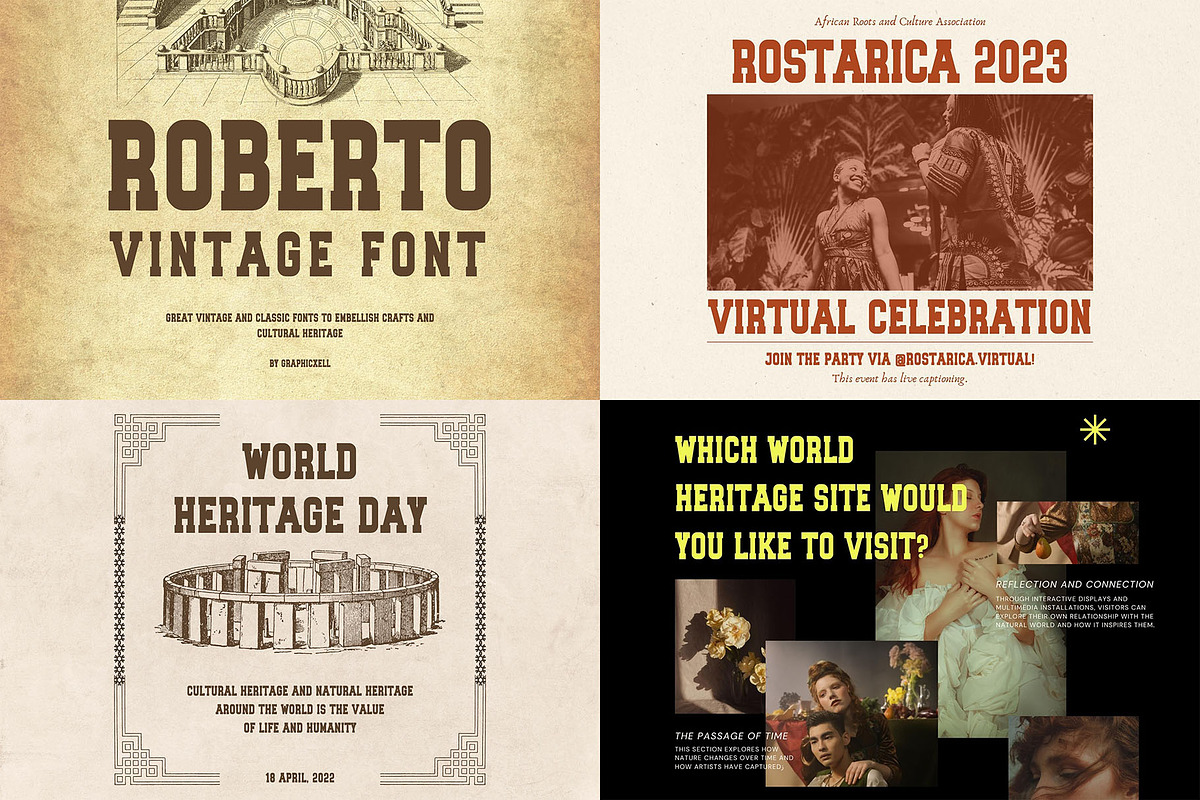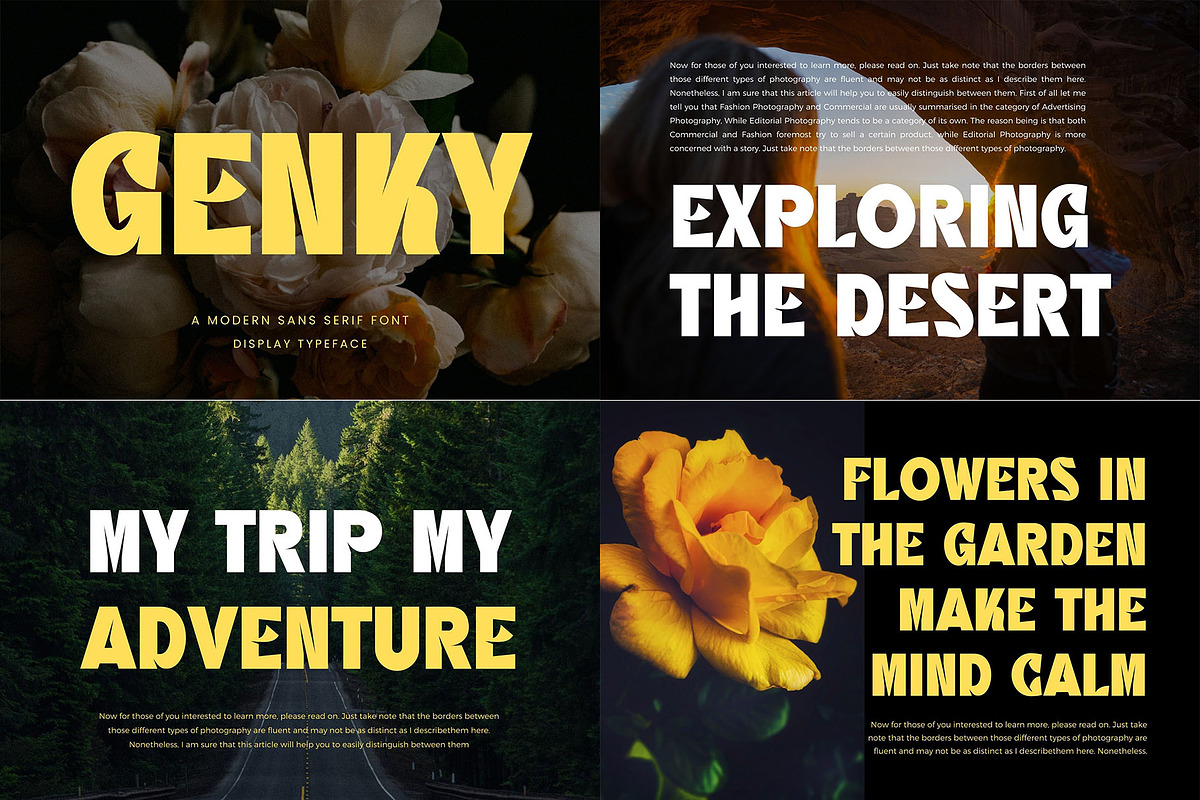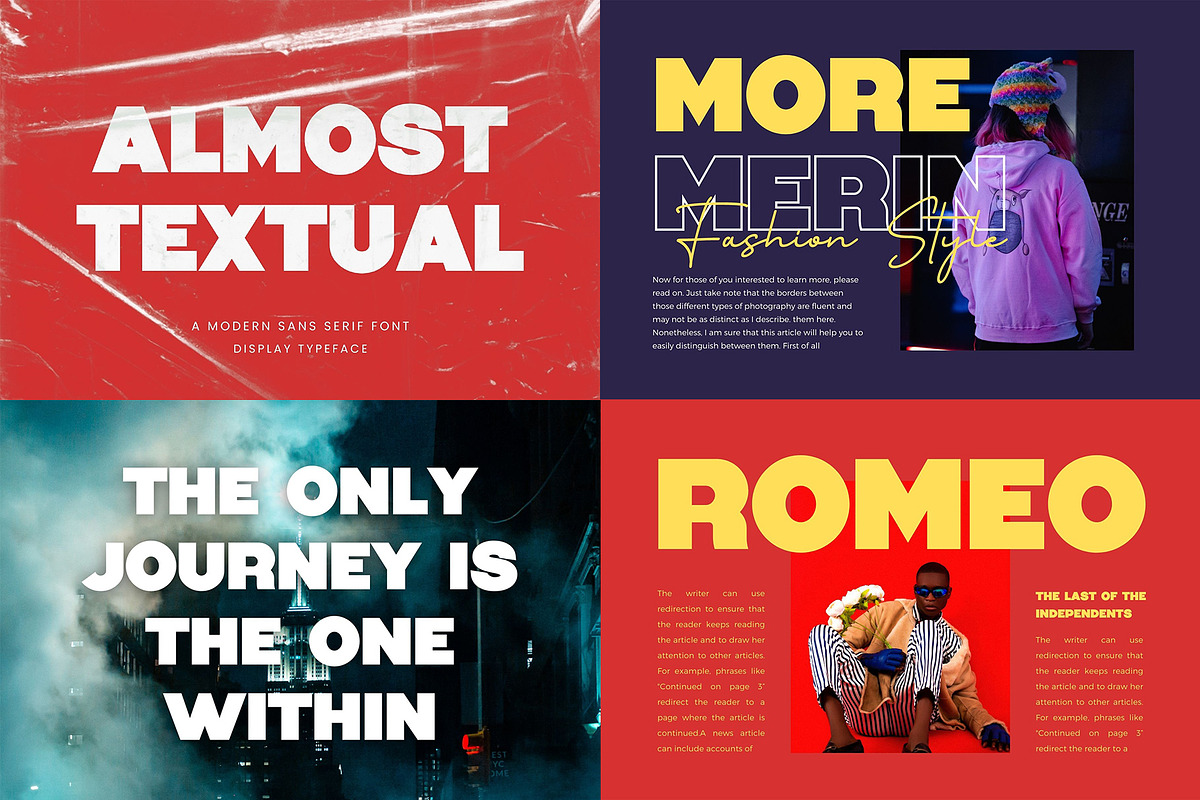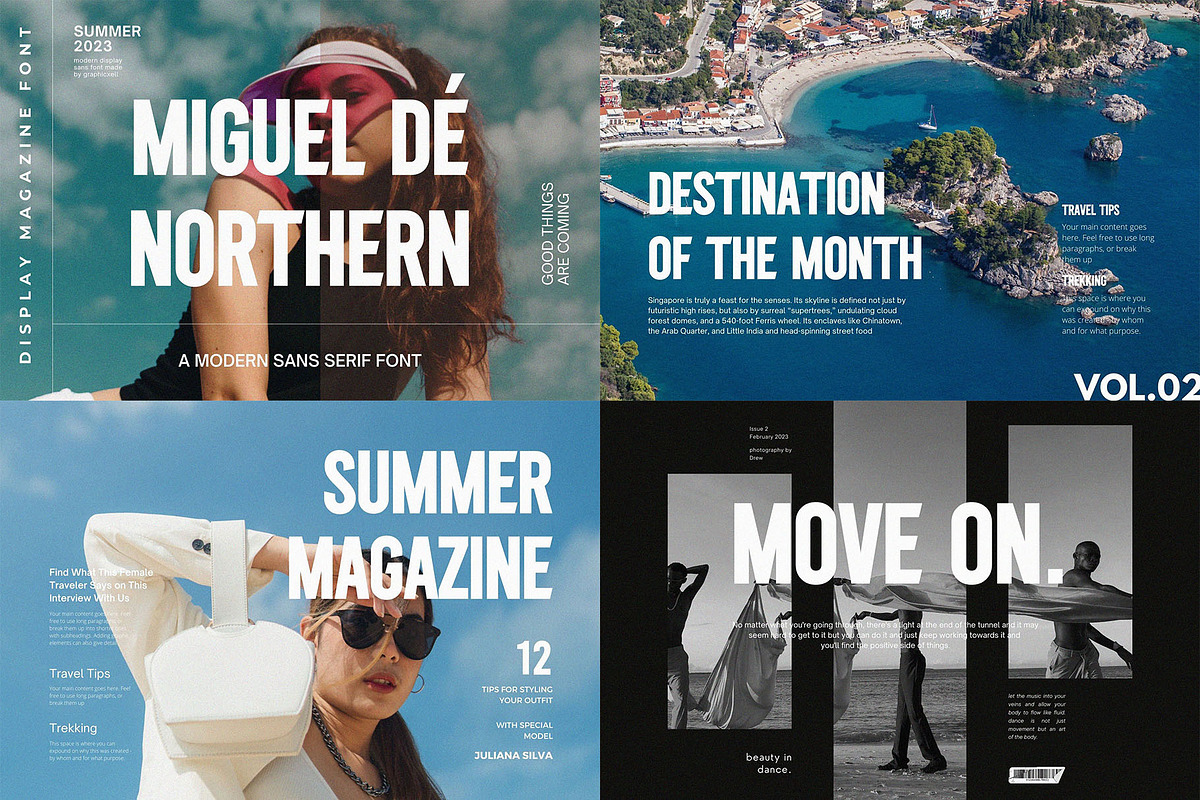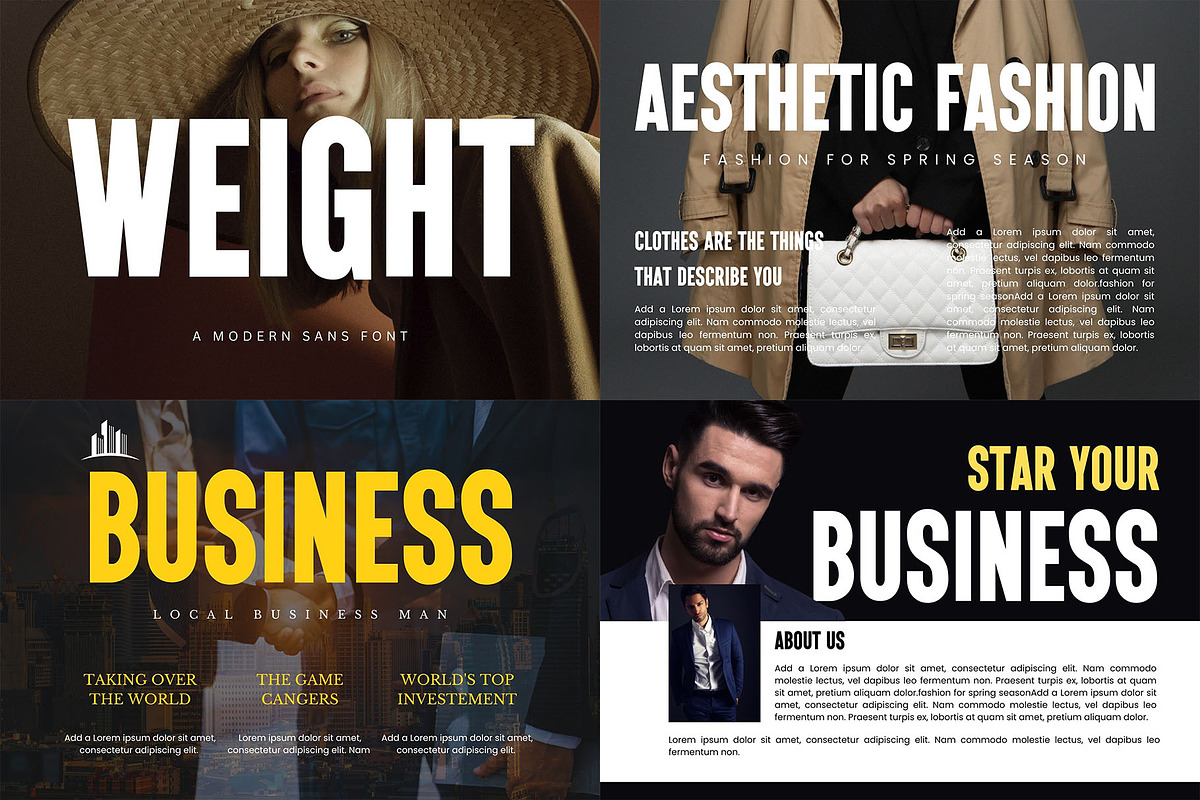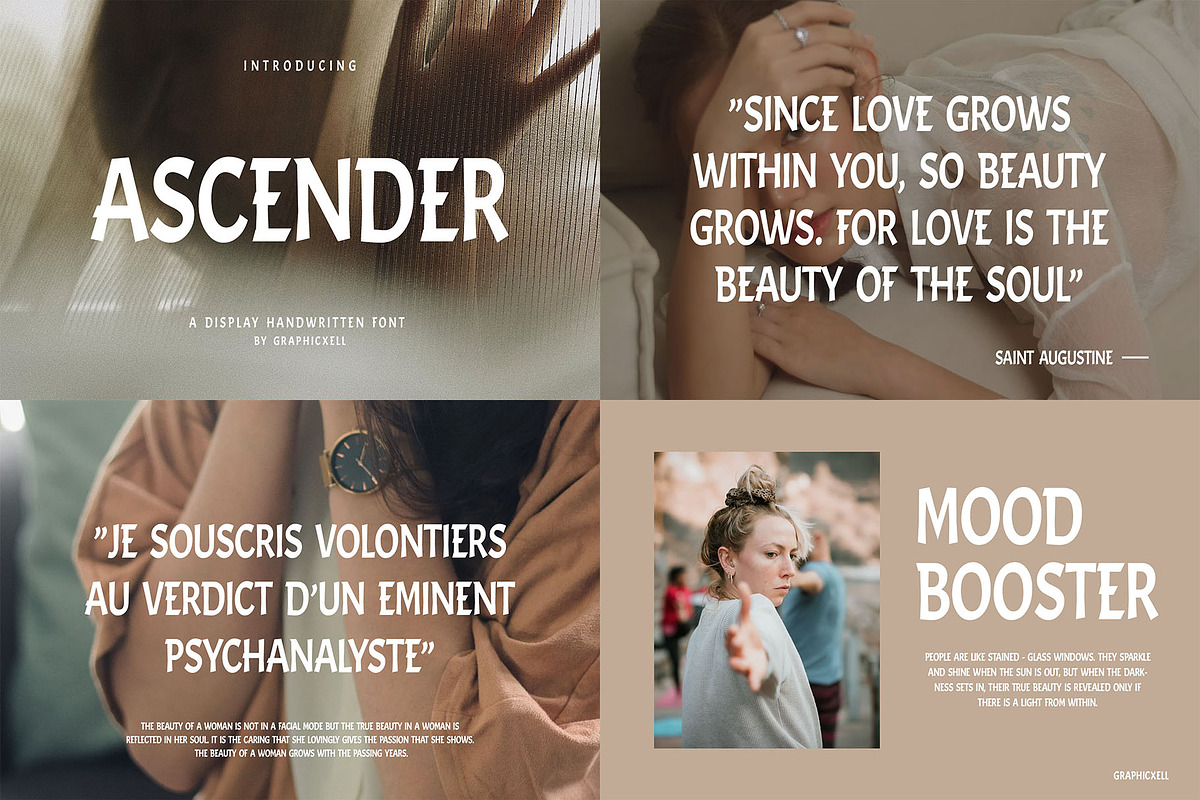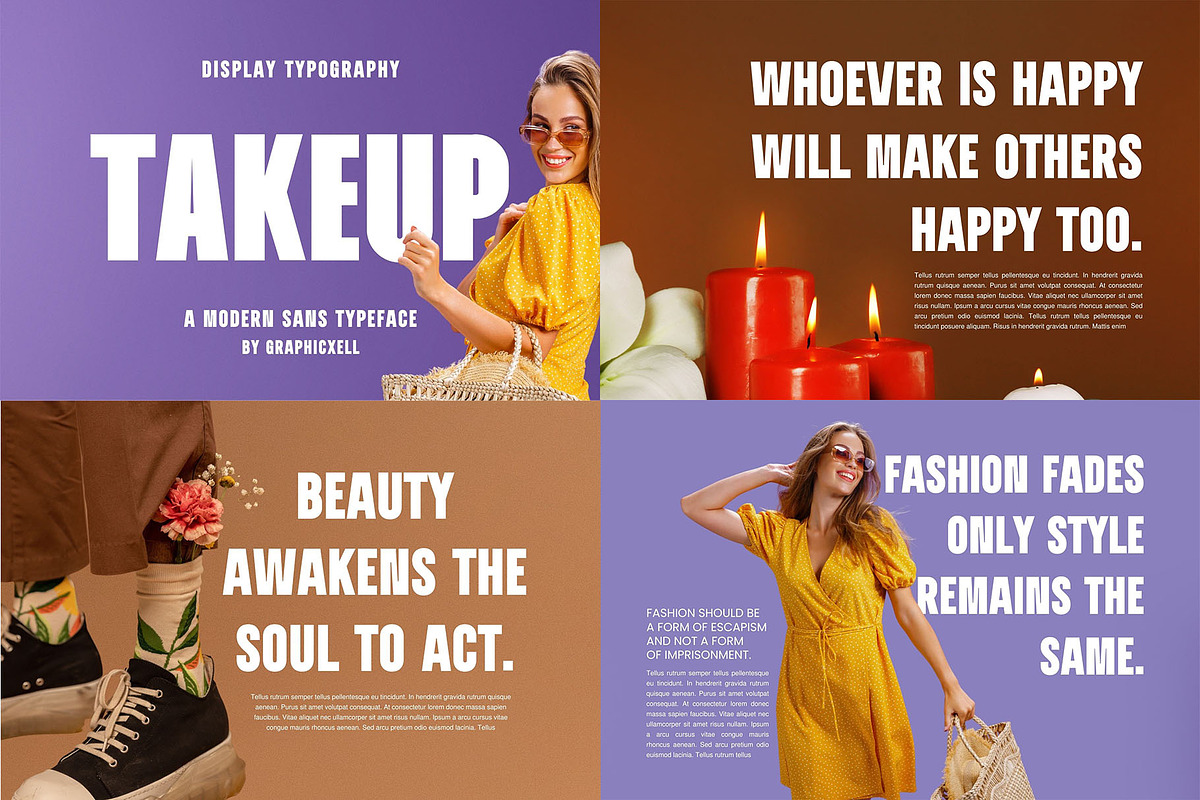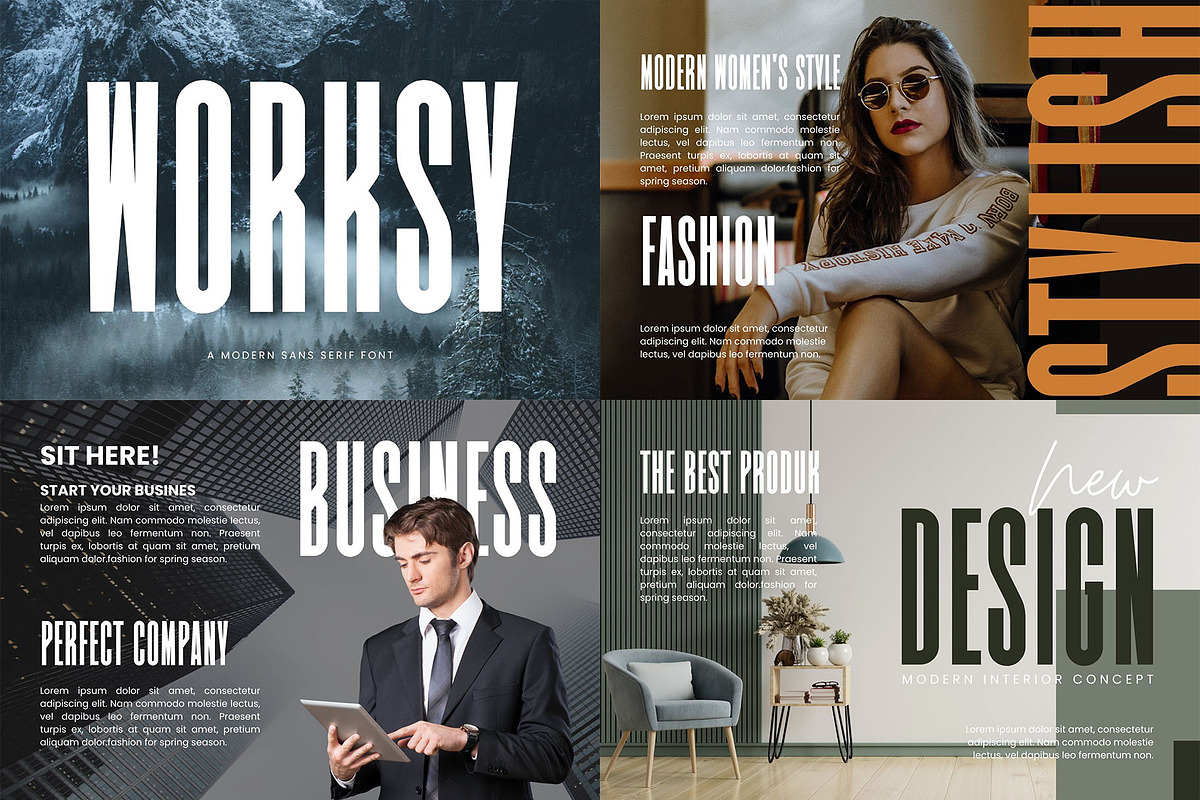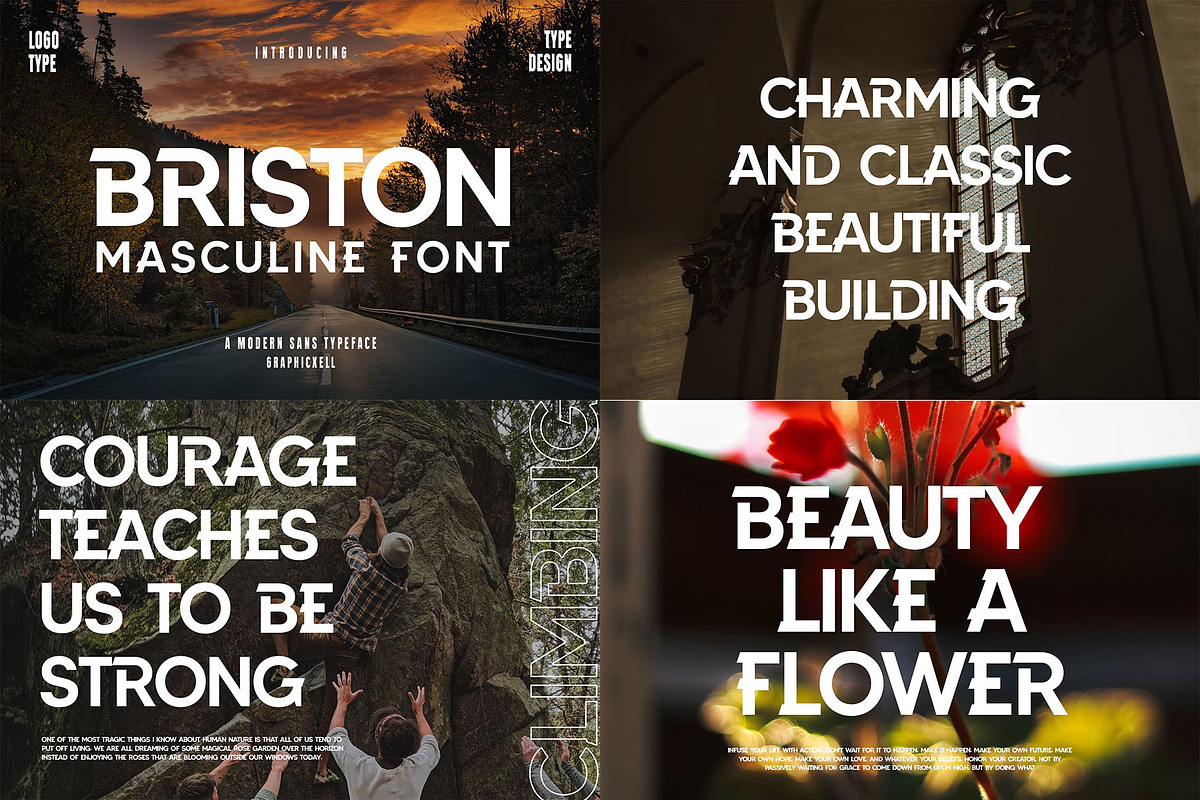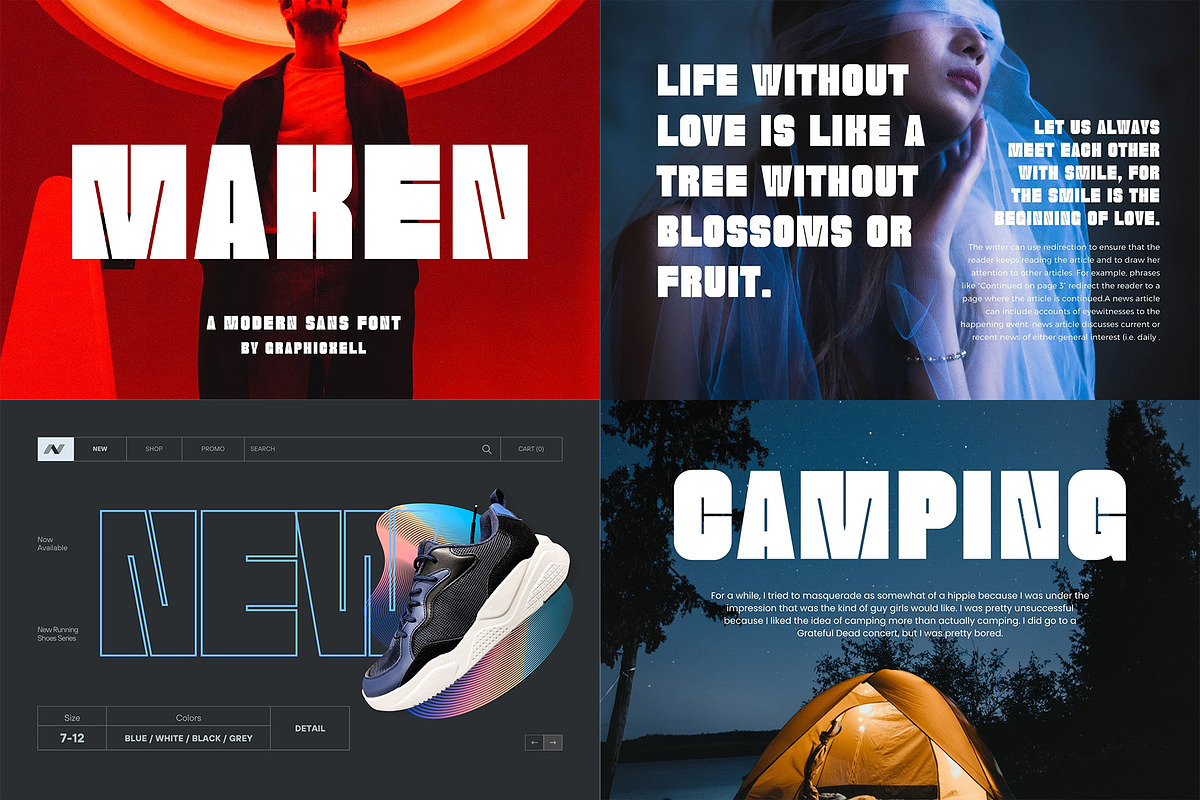
Best Bundle 50 Sans Serif Font
Best Bundle Collection 50 Sans Serif Font
Detail Bundel Font :
- 1 Rooster Font
- 2 Queenista Font
- 3 Brandy Font
- 4 Briston Font
- 5 Rebork Font
- 6 Resort Font
- 7 Broken Font
- 8 Ascender Font
- 9 Sartica Font
- 10 Quickly Exquisite Font
- 11 Monoline Font
- 12 Monkeys Font
- 13 Genflox Font
- 14 Roberto Font
- 15 Miguel De Northern Font
- 16 GorgeousCultural Font
- 17 Sandra Font
- 18 Wonderful Wostered Font
- 19 Gaming Sporty Font
- 20 EverythingPreserved Font
- 21 Skyline Font
- 22 BrightlyStories Font
- 23 Gateway Heaven Font
- 24 Amazing Paradise Font
- 25 balinese culture Font
- 26 Working Font
- 27 Thinking Font
- 28 Trends Font
- 29 Thanks Font
- 30 Takeup Font
- 31 Plans Font
- 32 Vault Font
- 33 Evers Font
- 34 Energy Font
- 35 Never Font
- 36 KingSky Font
- 37 Kefyla Font
- 38 Wilffer Font
- 39 Olympic Font
- 40 Tokyo Font
- 41 Worksy Font
- 42 Weight Font
- 43 Going Font
- 44 Gains Font
- 45 Maken Font
- 46 AlmostTextual Font
- 47 MillionDesign Font
- 48 Types Font
- 49 Genky Font
- 50 Flowing Font